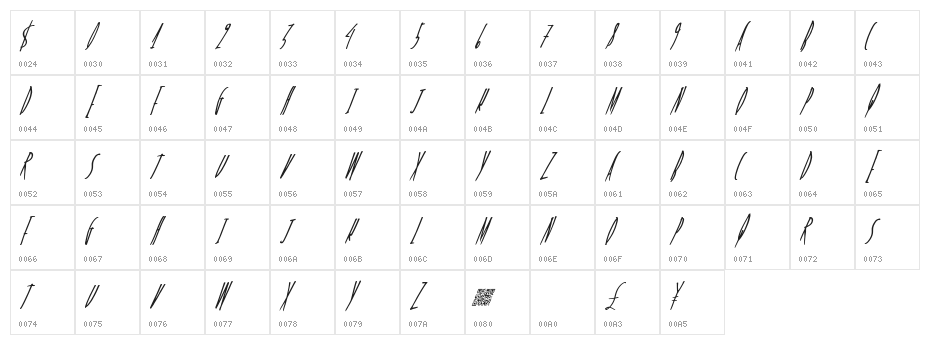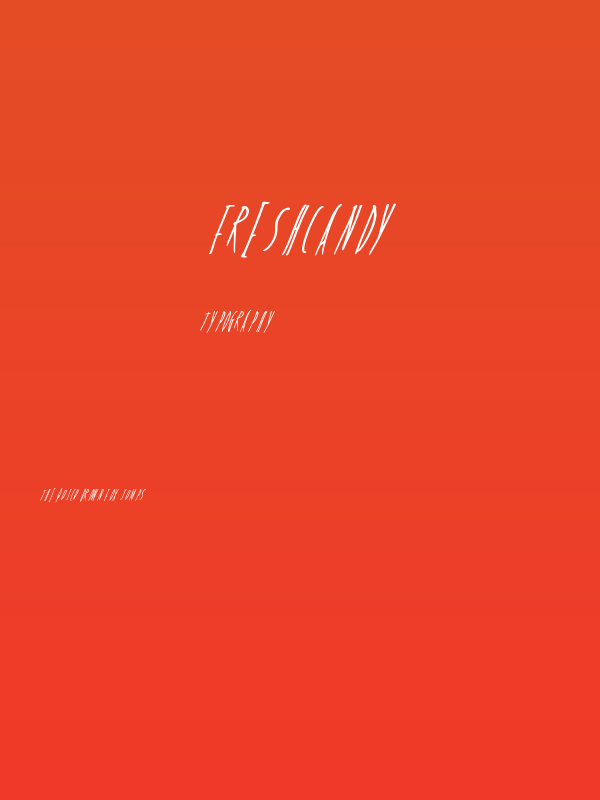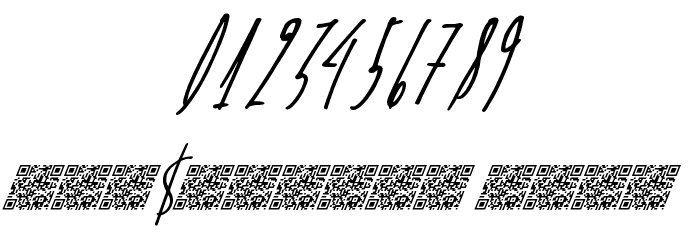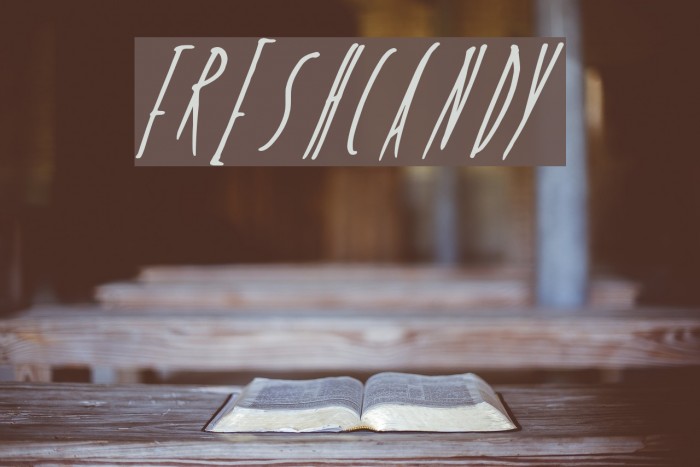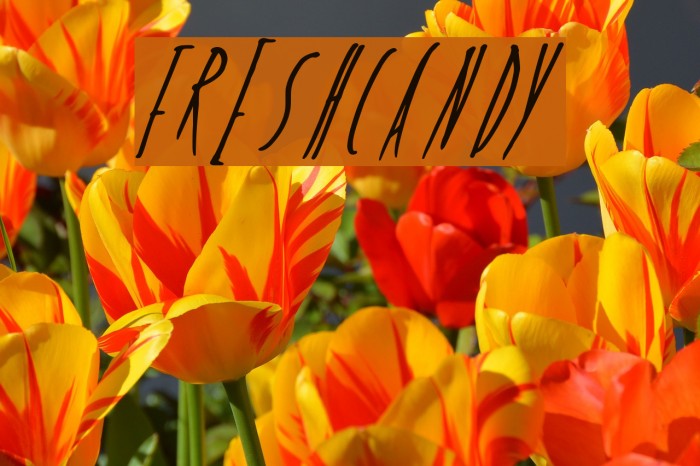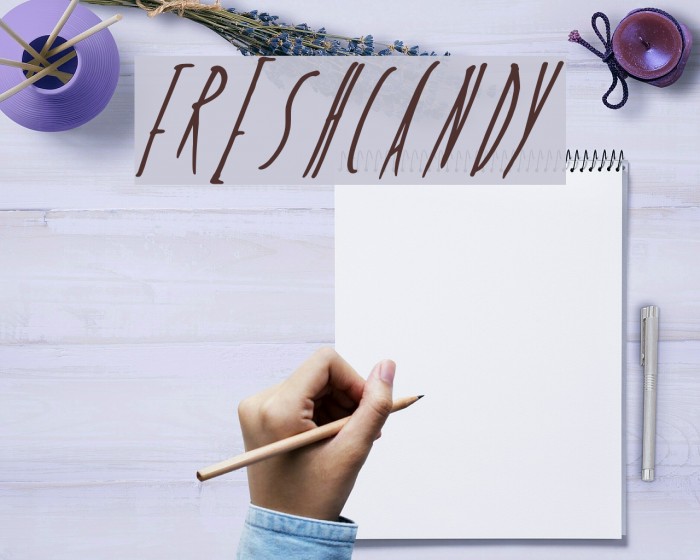
FreshCandy Font
FreshCandy Description
This font features a dynamic and energetic style, characterized by its tall, narrow letterforms and sharp, angular strokes. The letters have a handwritten quality, with a slight slant that adds to the sense of motion and fluidity. The uppercase and lowercase letters maintain a consistent style, with elongated verticals and pointed terminals. Numbers and special characters follow the same aesthetic, ensuring a cohesive look across all text. The overall appearance is modern and edgy, making it suitable for projects that require a bold and distinctive visual impact.